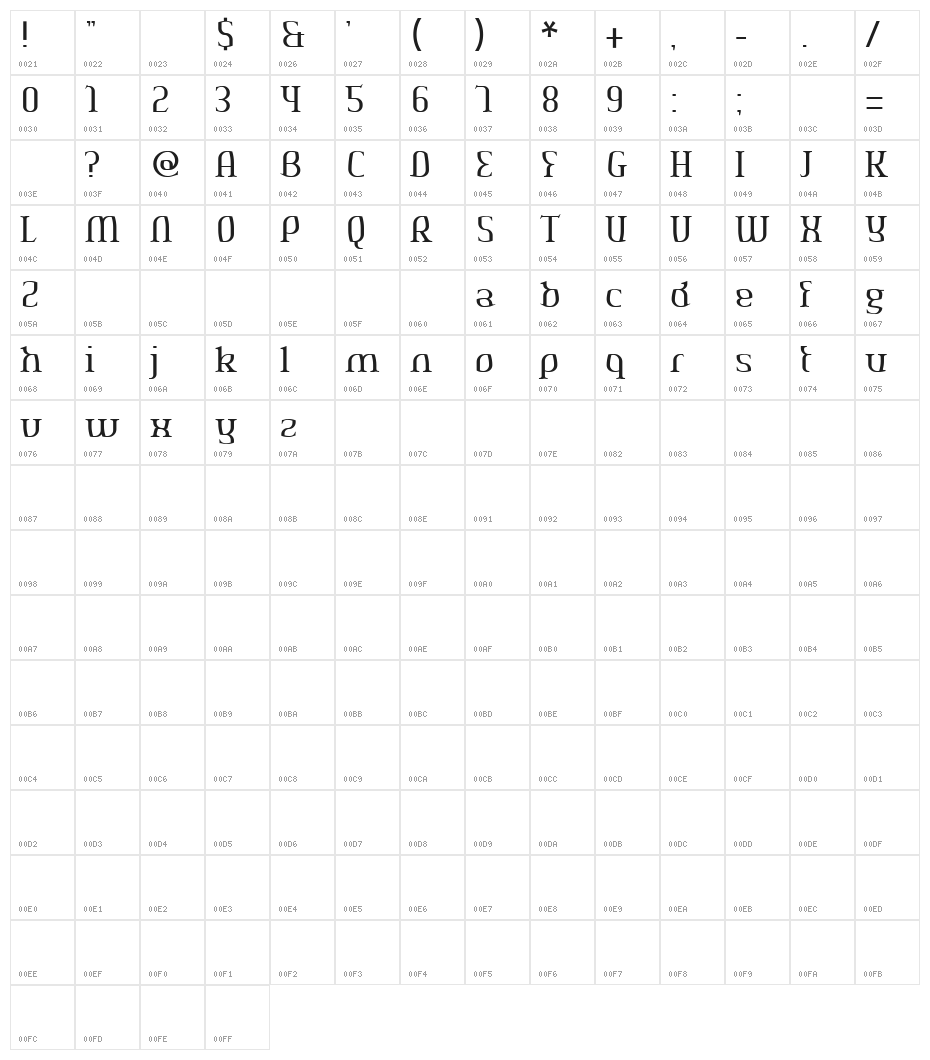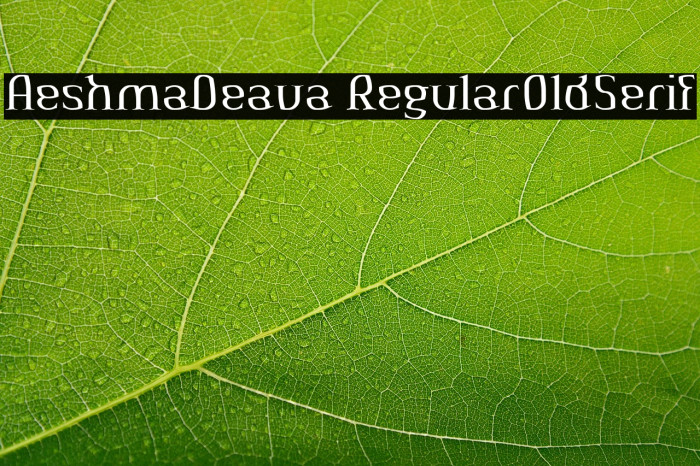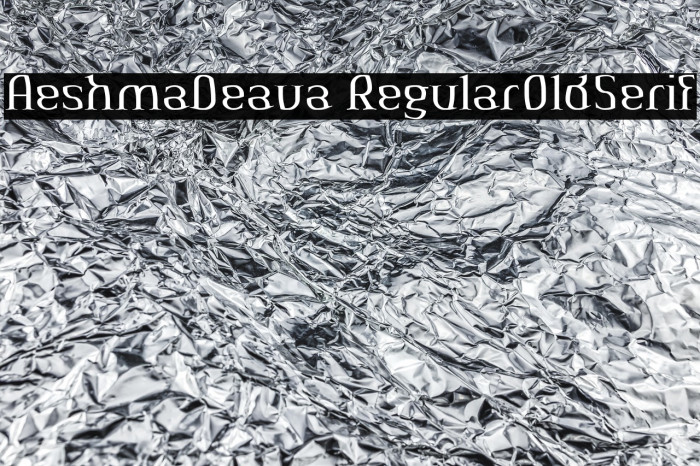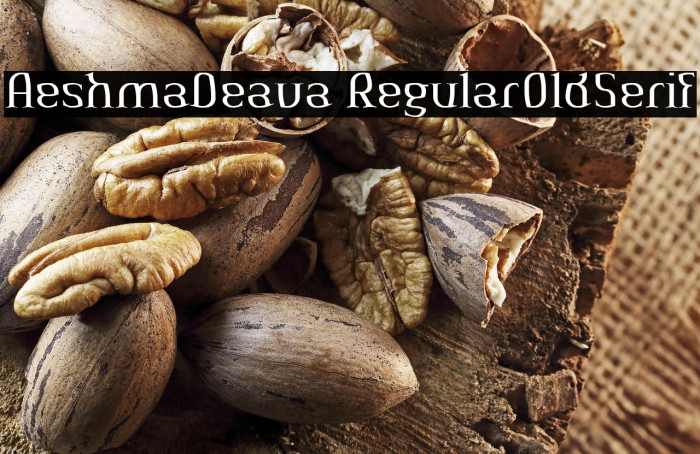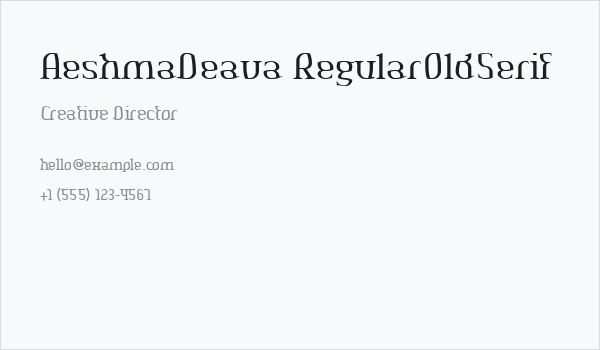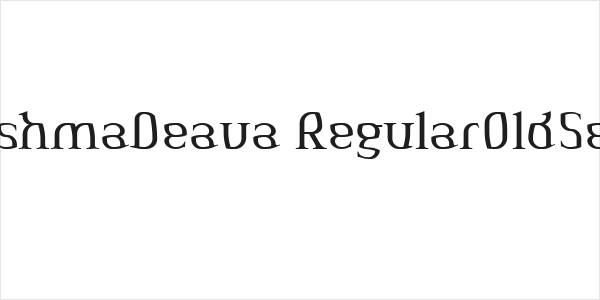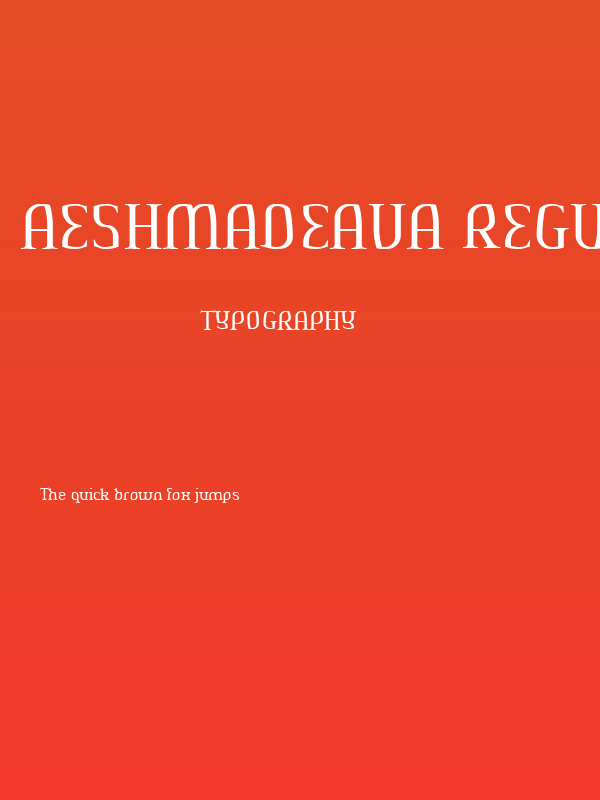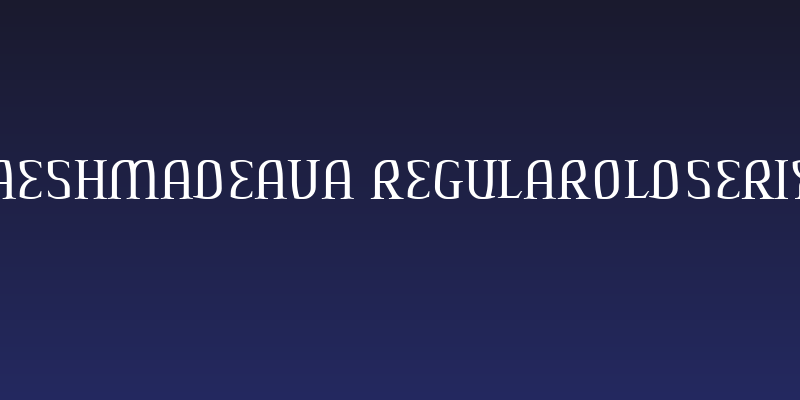
AeshmaDeava RegularOldSerif Font
AeshmaDeava RegularOldSerif Description
This font features a unique blend of traditional serif elements with a modern twist. The uppercase letters exhibit a strong, authoritative presence with their tall, narrow forms and pronounced serifs. The lowercase letters maintain a consistent style, offering a harmonious balance between the sharp angles and smooth curves. Numbers are designed with a similar aesthetic, ensuring readability while maintaining the font's distinctive character. Special characters are crafted to complement the overall style, making them suitable for various applications. The font's design is both elegant and versatile, making it an excellent choice for projects that require a touch of sophistication.